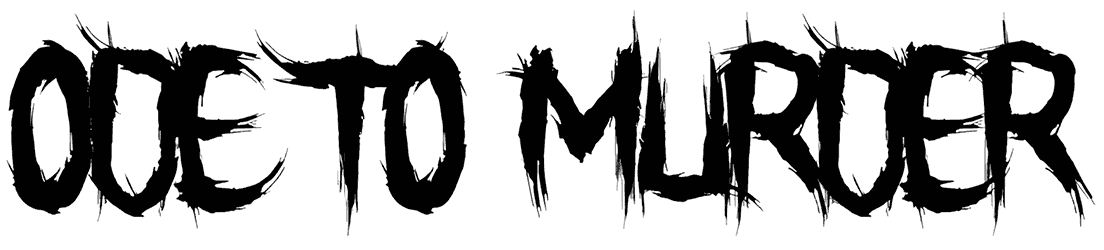
Ode To Murder Font
Even if you feel like there’s no room left to add a new script font to your collection, we suggest making room for Ode To Murder. Close letters and thin lines are removed from the edges, reducing your need for any decoration to convey the sense of horror.
In addition, the handwriting mode of this death metal font has made it look like a text of criminals and has increased the level of horror in posters and titles without small letters and numbers.